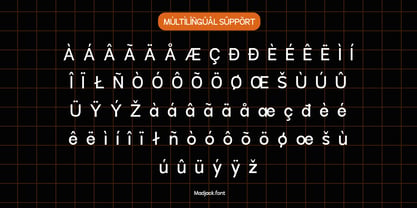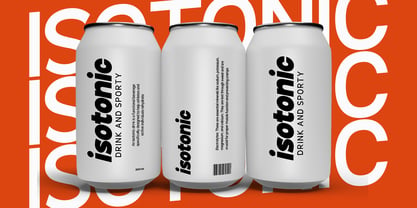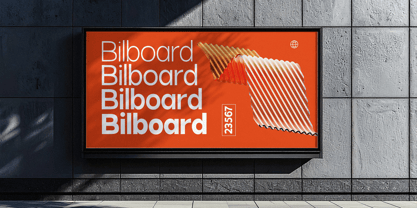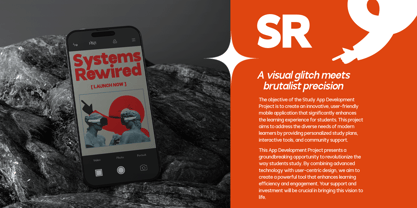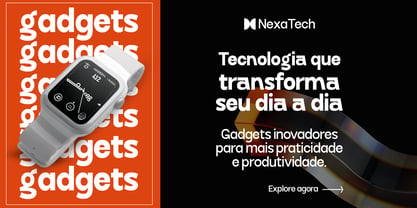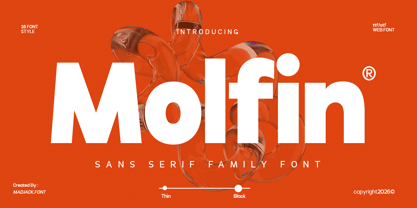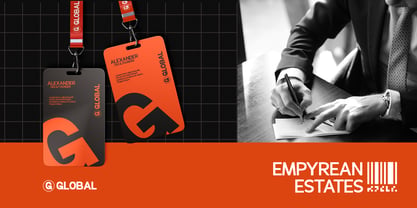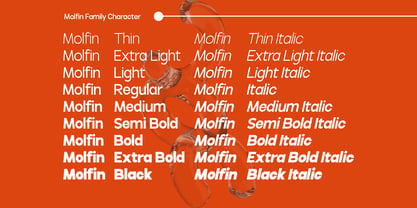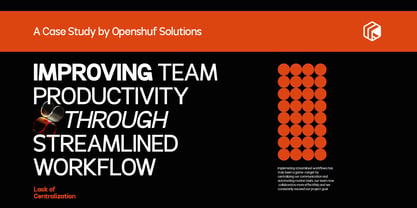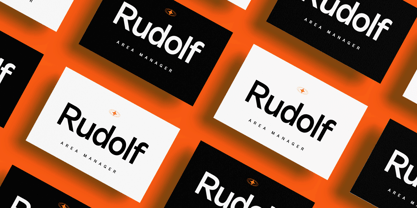
Molfin
by madjack.font
The Molfin Font Family was designed by Zaki Muhammad and published by madjack.font. Molfin contains 18 styles and family package options. More about this family
Molfin is a modern sans serif font with a strong, bold, and futuristic character. The letterforms are thick, solid, and clean, without decorative elements, creating a professional, confident, and high-impact appearance. Its wide proportions make it highly effective for headlines, branding, and large display typography. The visual style feels contemporary and premium, making it suitable for technology brands, modern businesses, fashion, digital products, and campaigns that aim to look bold and elegant. With multiple weight variations (from Thin to Black), Molfin is versatile — suitable for minimalist layouts as well as strong, dominant visual compositions. Overall, Molfin delivers a vibe of: Modern & clean Bold & powerful Futuristic & stylish Corporate yet creative If you want, I can tailor this description for a specific use case, like a font marketplace listing, branding presentation, promotional poster, or brand storytelling.
Designers: Zaki Muhammad
Foundry: madjack.font